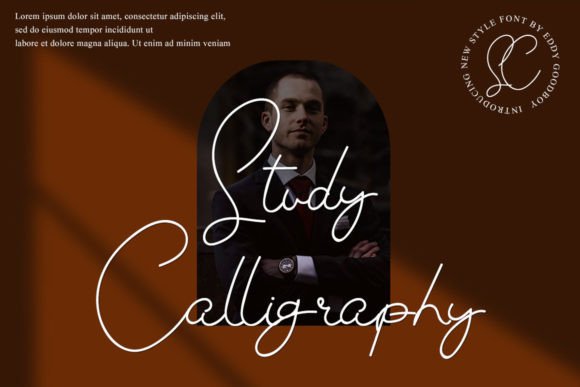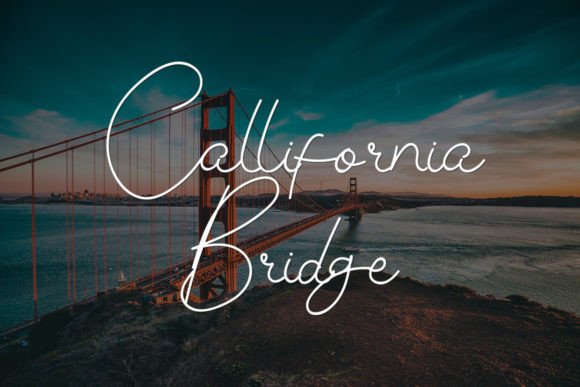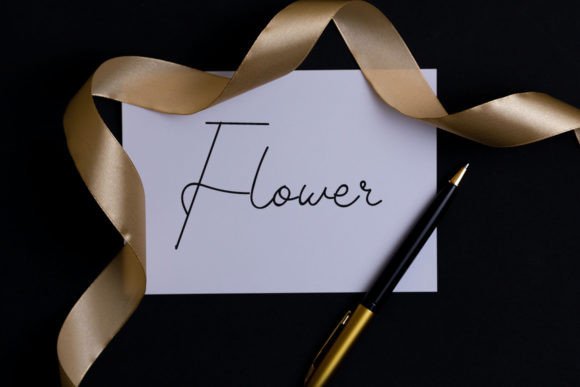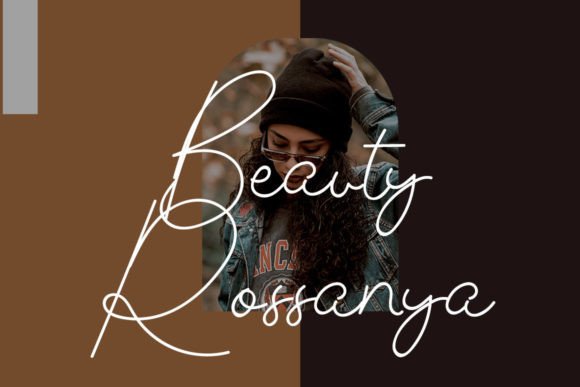
Study Calligraphy Font
A Beautiful and Sweet Handwritten Typeface
Study Calligraphy Font is a beautiful and sweet handwritten typeface designed to bring a fresh, clean, and elegant touch to any design. Its delicate strokes and refined characters make it the perfect choice for projects that require a personalized, artistic feel. Whether you’re working on invitations, logos, branding, or social media content, the Study Calligraphy Font adds a timeless and graceful appearance to your designs, ensuring that your work stands out with both style and sophistication.
Perfect for Wedding Invitations and Special Occasions
For wedding invitations and other special occasion stationery, the Study Calligraphy Font is an ideal choice. Whether you’re designing RSVP cards, thank-you notes, or event programs, this font adds a romantic and elegant touch to your designs. Its clean lines and refined beauty make it perfect for weddings, anniversaries, and other celebrations that demand a timeless and charming appearance. The Study Calligraphy Font ensures your invitations stand out with a personalized and luxurious feel.
Great for Logos and Branding Projects
For logos and branding, the Study Calligraphy Font brings a unique, artistic touch to your business identity. Whether you’re creating a luxury brand logo, personalized brand, or corporate materials, this font adds an element of elegance and sophistication to your branding. The handwritten calligraphy style makes your brand feel approachable while maintaining a high-end and memorable look. Perfect for businesses in fashion, beauty, or lifestyle, the Study Calligraphy Font helps elevate your brand identity with a charming, artistic flair.
Ideal for Social Media and Digital Content
For social media posts and digital content, the Study Calligraphy Font adds an elegant, charming touch to your designs. Whether you’re creating Instagram graphics, Pinterest pins, or Facebook posts, this font enhances your content with a clean, graceful aesthetic. Perfect for quote graphics, product promotions, or event announcements, the Study Calligraphy Font helps your digital content feel personalized and artistic, making it perfect for engaging your audience while maintaining a stylish and sophisticated appearance.
Great for Greeting Cards and Invitations
The Study Calligraphy Font is also perfect for greeting cards and invitations. Whether you’re designing birthday cards, thank-you notes, or holiday greetings, this font adds an elegant, sweet touch to your designs. Its calligraphic style makes your cards feel personalized, luxurious, and memorable, while maintaining a welcoming and approachable look. The Study Calligraphy Font is ideal for anyone looking to add a refined yet heartfelt touch to their cards and invitations.
Perfect for Product Packaging and Labels
For product packaging and labels, the Study Calligraphy Font adds a luxurious, personalized touch to your products. Whether you’re designing product labels, gift packaging, or seasonal items, this font enhances your product’s appeal with its clean and elegant design. Ideal for high-end brands, artisan goods, and luxury products, the Study Calligraphy Font ensures your packaging feels premium and sophisticated, while still being approachable and charming.
Versatile, Legible, and Elegant
Despite its delicate calligraphy style, the Study Calligraphy Font remains legible and easy to use. Its consistent strokes and well-spaced characters ensure that your text remains clear and readable, even for longer passages or smaller sizes. Whether you’re using it for headlines, captions, or body text, this font strikes the perfect balance between creativity and readability, making it ideal for a wide range of design applications, from print to digital media.
The Study Calligraphy Font is easy to use and integrates smoothly into most design software. Whether you’re working on logos, wedding invitations, social media graphics, or product packaging, this font ensures your designs look polished and professional while maintaining a personalized and artistic touch. Its versatility makes it perfect for both print and digital media, giving you the flexibility to use it across various projects with ease.
Add Elegance and Charm to Your Designs with Study Calligraphy Font
If you’re looking for a delicate, elegant handwritten  that adds a personalized, charming touch to your designs, the Study Calligraphy Font is the perfect choice. Whether you’re designing wedding invitations, logos, social media posts, or product packaging, this font will help you create memorable, timeless designs that stand out. Let the  add a refined and artistic touch to your creative projects and leave a lasting impression with its elegance and charm.